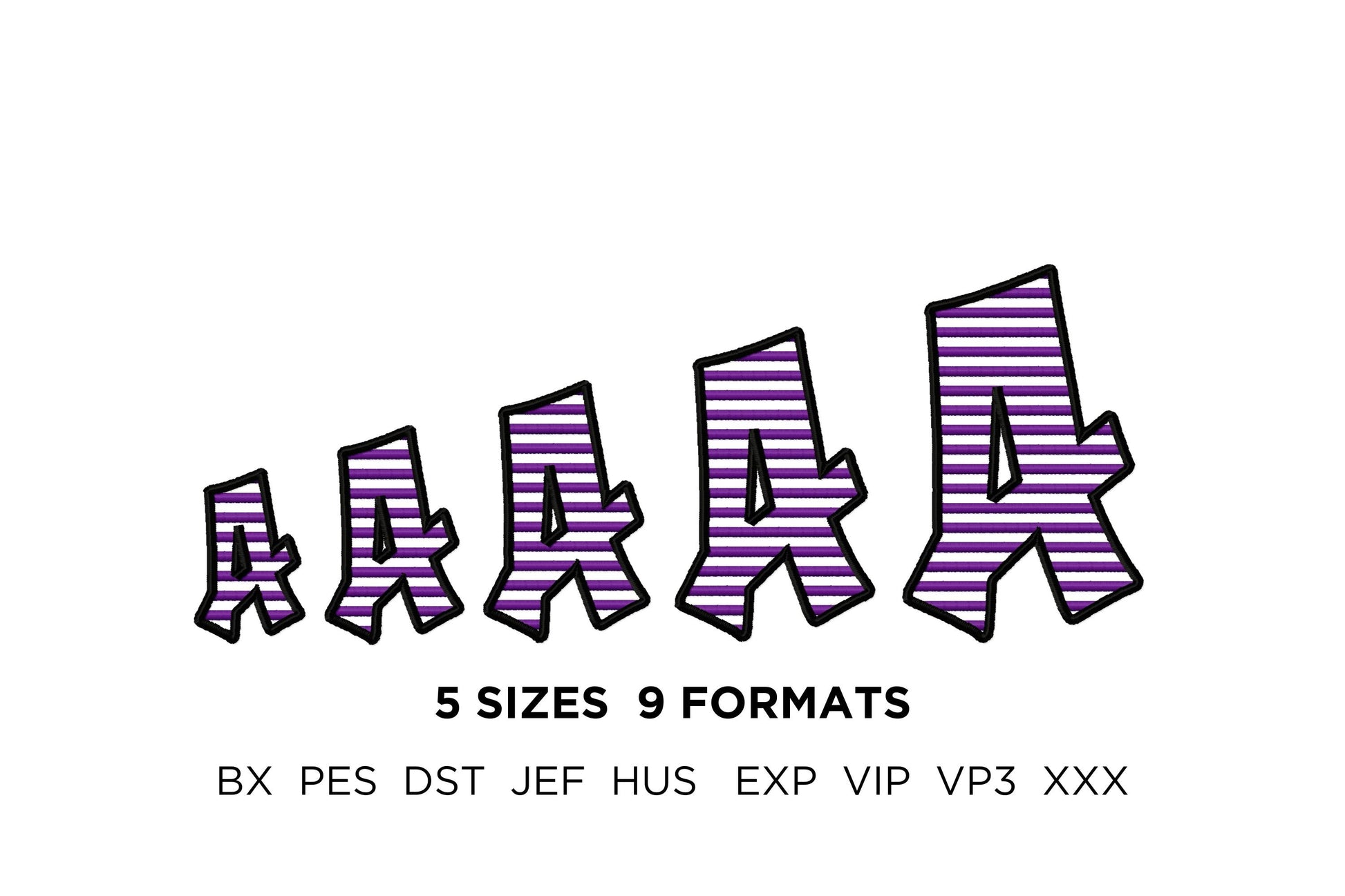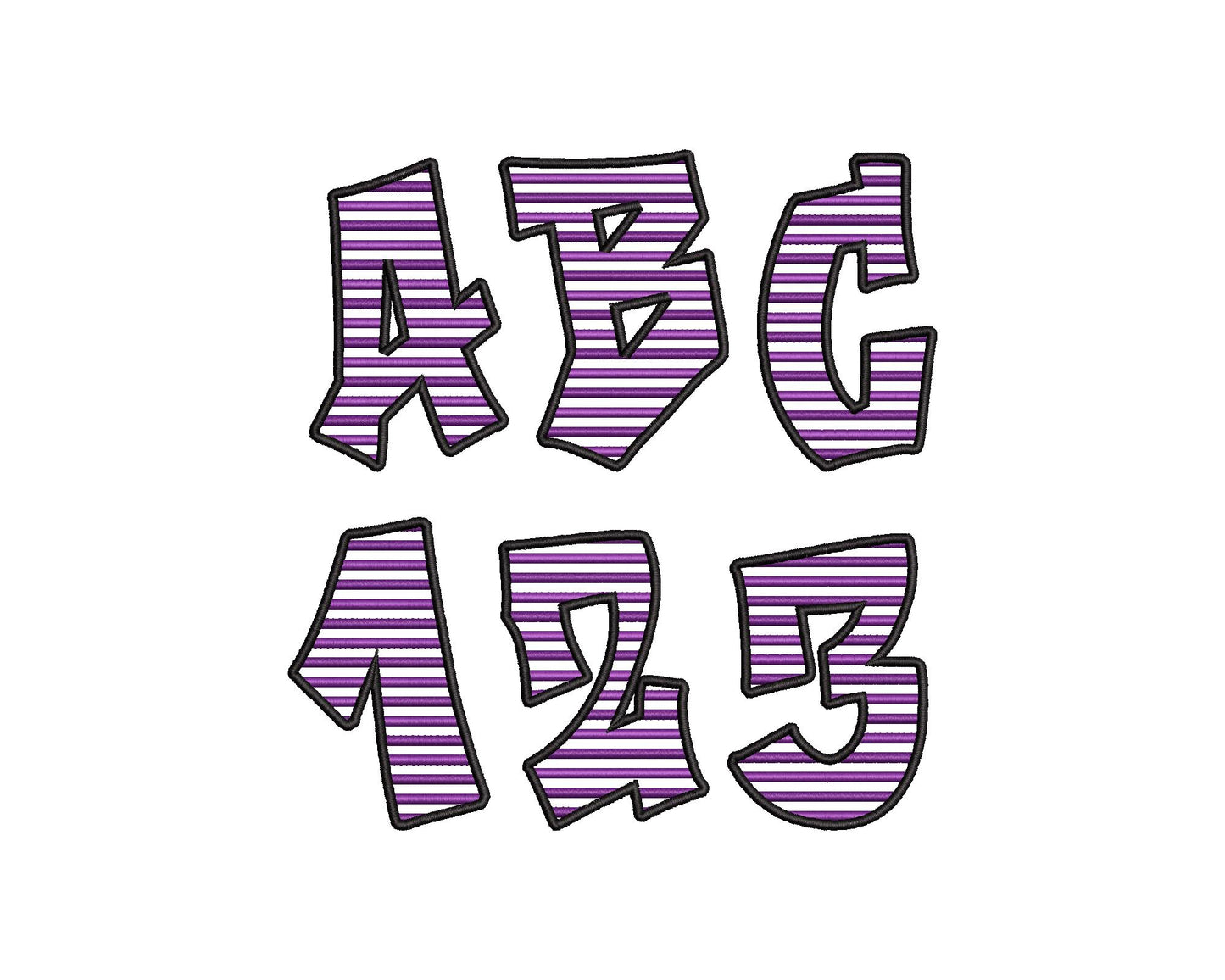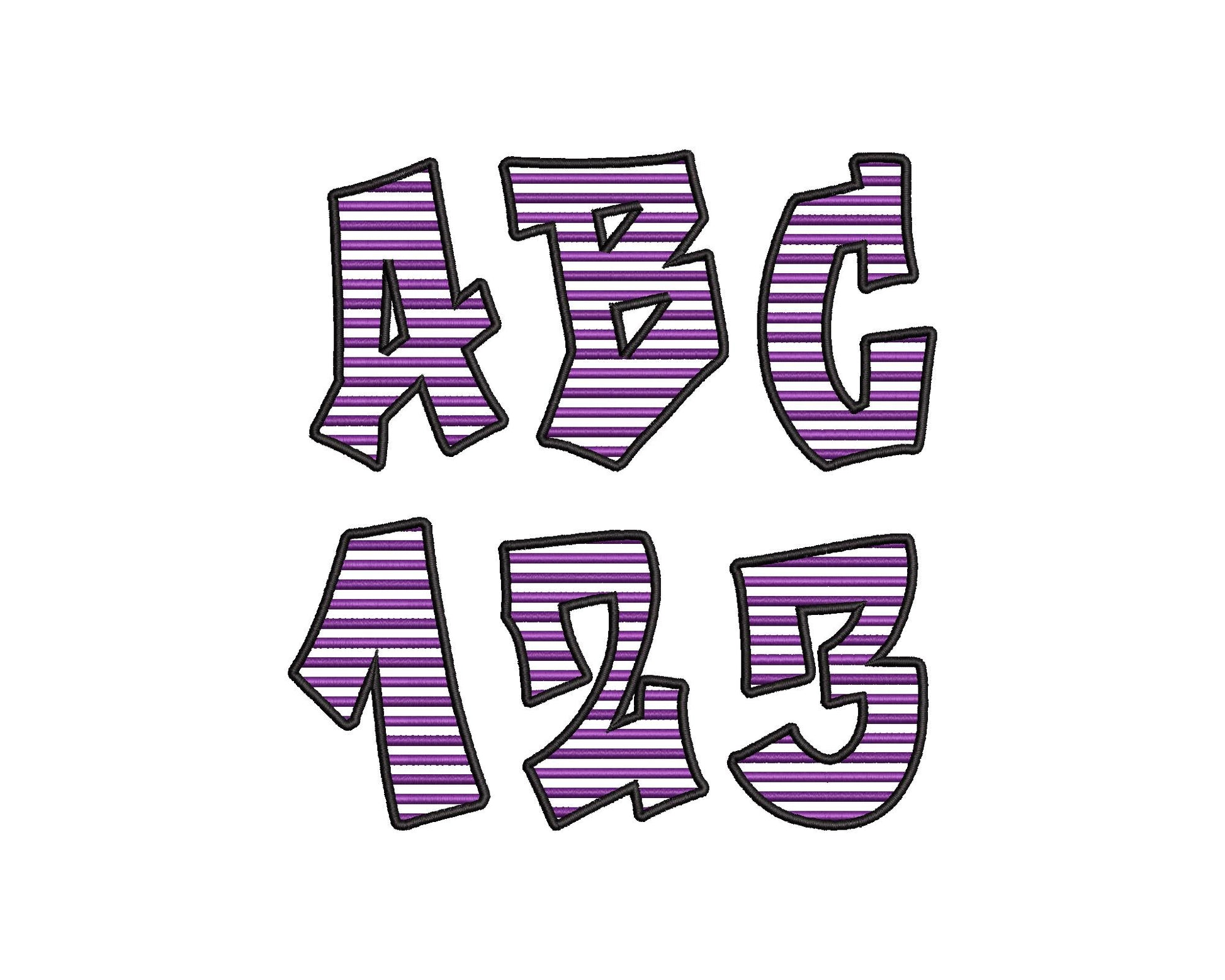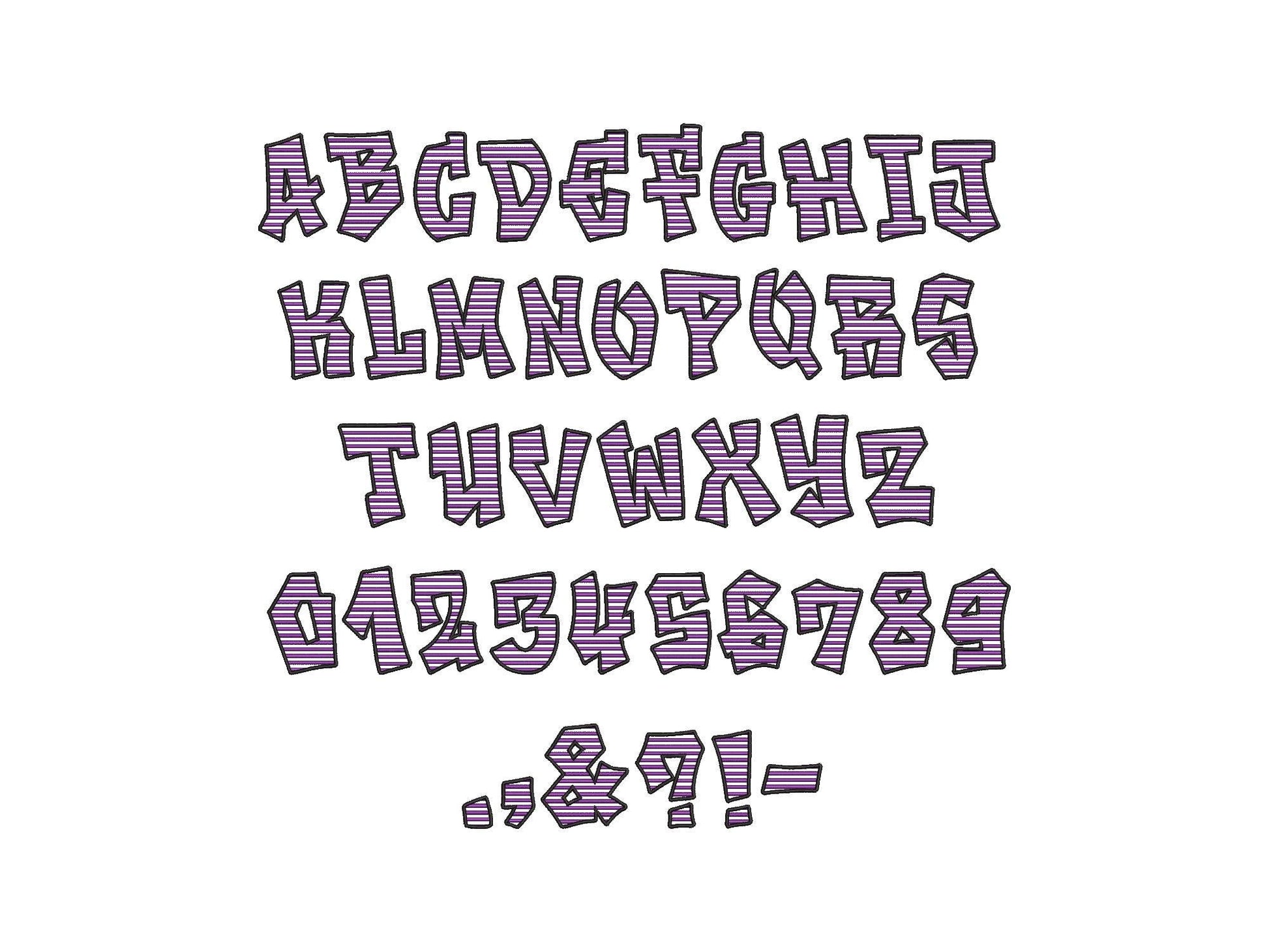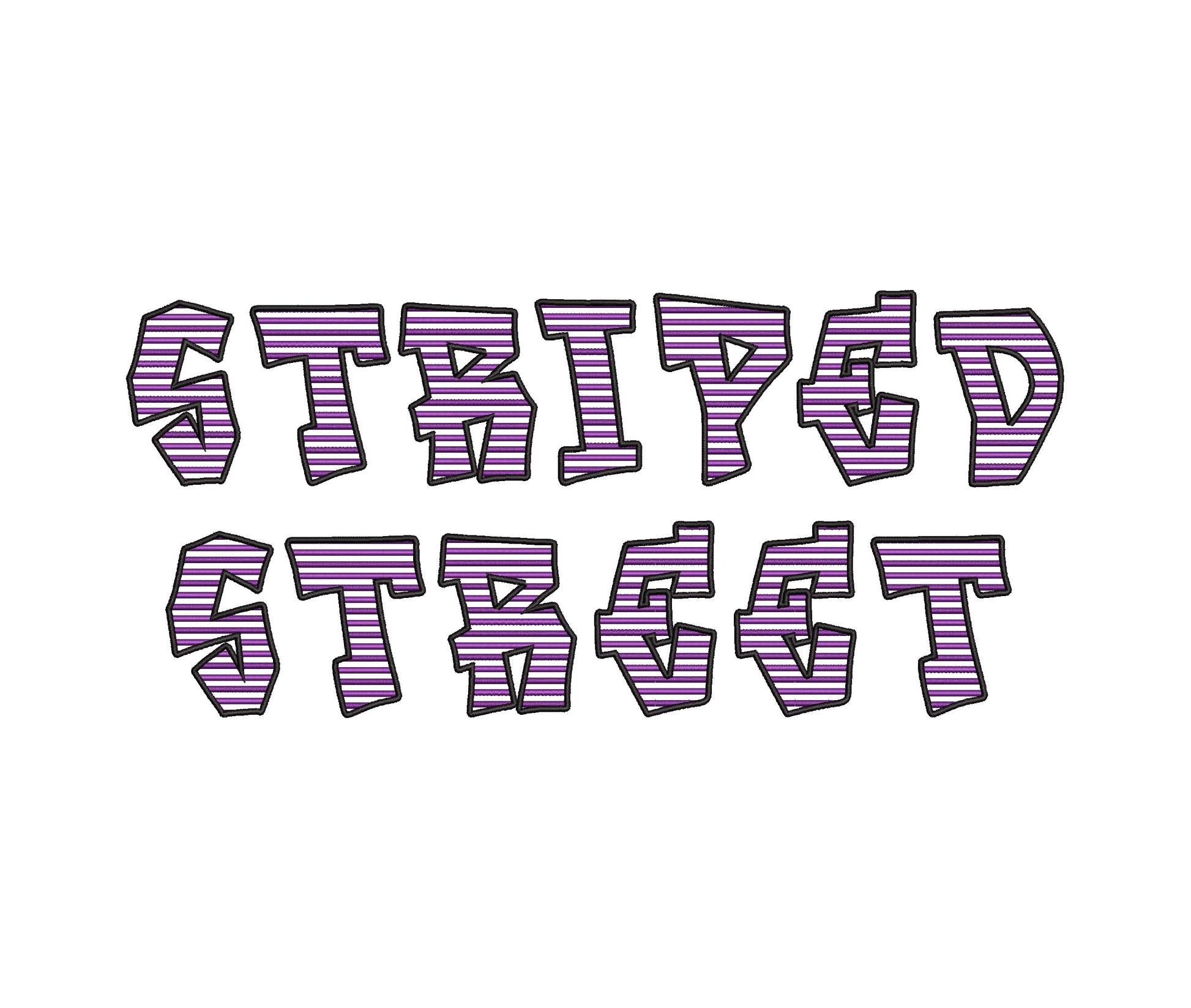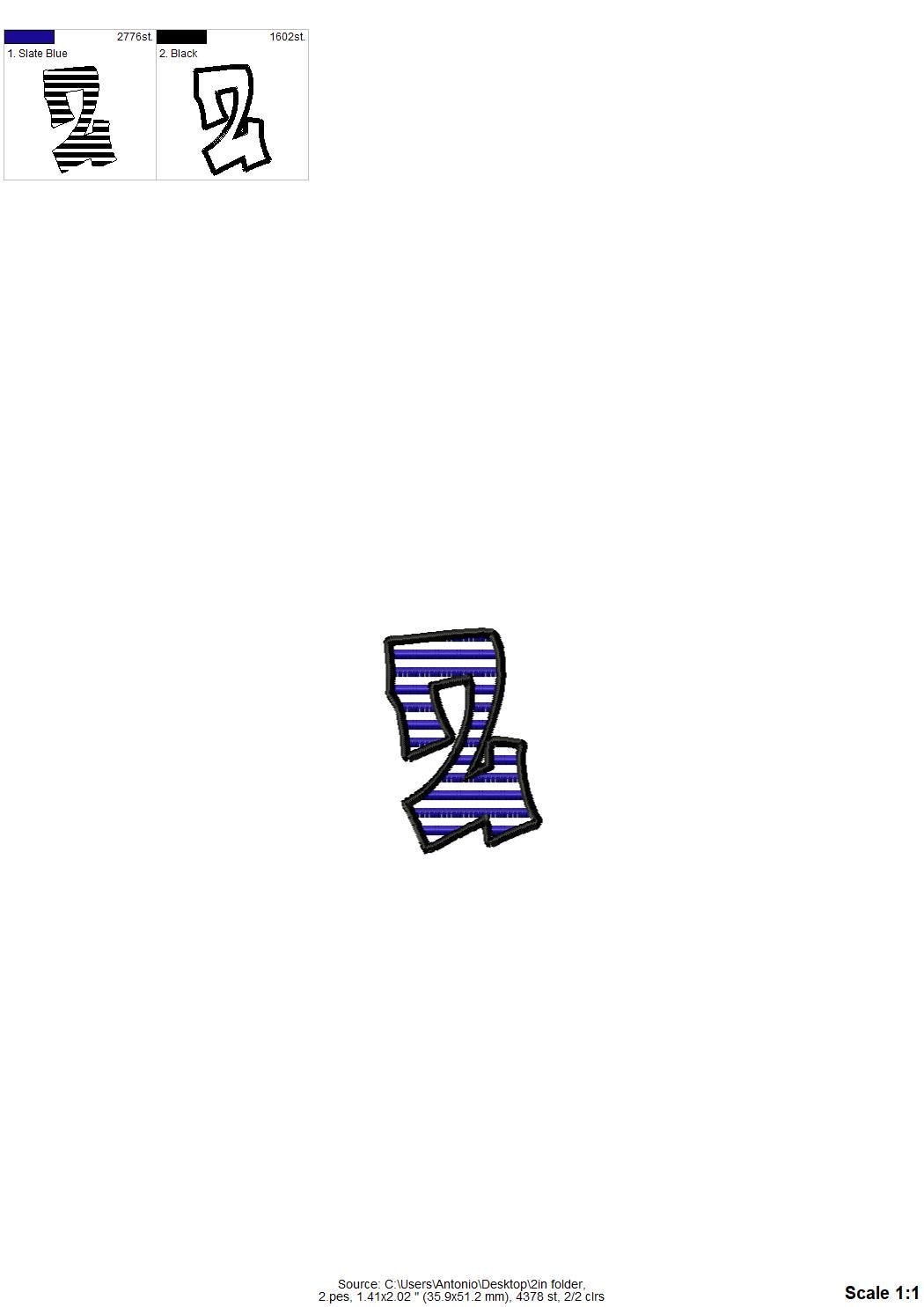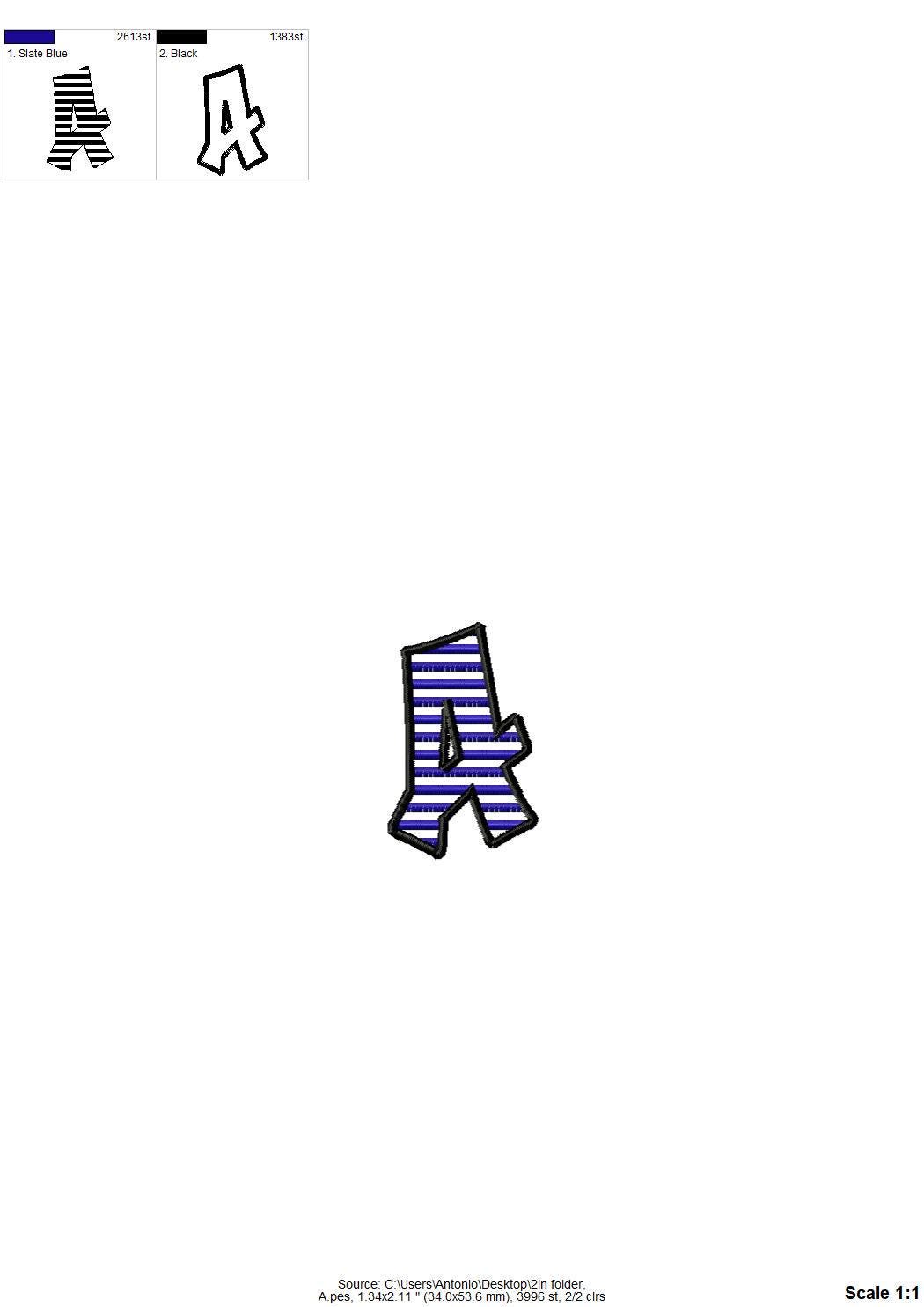
Striped Street Font Satin Stitch Alphabet Monogram Letters Graffiti
Or click to open the linkA graffiti street style font with satin stripes and an outline. Fun for kids' and teens' shirts, hoodies, bags and monograms.
Uppercase letters A to Z, numbers 0 to 9 and punctuation. Five sizes: 1.4, 1.8, 2, 2.5 and 3 inches. Satin stripes leave the letters see-through, so the fabric shows.
- Striped graffiti street font
- Uppercase A to Z, numbers 0 to 9, punctuation
- 5 sizes, 1.4 to 3 in